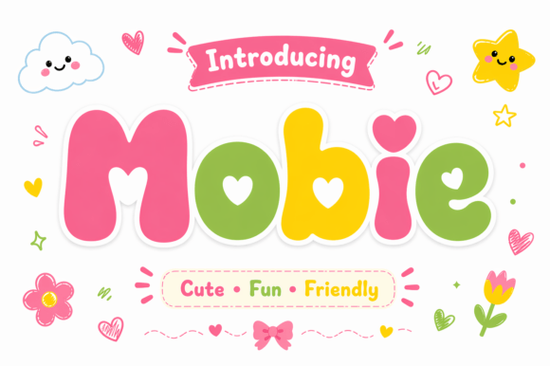
If you're looking for a font that instantly adds warmth and personality to your designs, Mobie Font is worth a closer look. With its rounded, bubble-like letters and subtle heart-shaped accents, Mobie brings a cheerful, hand-drawn feel that works beautifully across everything from kids’ merchandise to playful branding. It’s not overly polished its slight irregularities are part of its charm and that’s exactly why it resonates so well with audiences who appreciate authenticity and joy in visual design.
What makes Mobie Font stand out for creative projects?
Mobie doesn’t try to be sleek or corporate. Instead, it leans into soft curves, uneven baselines, and gentle quirks that mimic the spontaneity of freestyle doodling. This gives it an organic, approachable vibe ideal if you’re designing:
- Personalized children’s products (think mugs, tote bags, or birthday shirts)
- Friendly social media graphics or stickers
- Invitations, greeting cards, or packaging for lifestyle brands
- Print-on-demand items targeting a youthful or whimsical audience
Unlike rigid geometric fonts, Mobie feels alive. Each character has just enough variation to avoid monotony, while still maintaining readability at medium to large sizes. That balance is rare and valuable for designers who want fun without sacrificing clarity.
How does Mobie compare to other playful display fonts?
If you’ve explored Creative Fabrica’s collection, you might already know fonts like Banana Bogart, which offers bold, cartoonish energy, or Vespa, with its retro-inspired bounce. Mobie sits in a slightly softer lane: less exaggerated than Banana Bogart, more organic than Vespa. It shares some of the handcrafted warmth of Aspen, though Aspen leans rustic, while Mobie leans sweet.
For those who love quirky letterforms, Rotzky delivers dynamic angles and motion, whereas Mobie stays grounded in roundness and calm joy. And while Boogie Blast channels disco-era exuberance, Mobie whispers lighthearted optimism perfect when you want to smile, not shout.
Where should you use Mobie Font (and where should you skip it)?
Mobie shines in contexts that benefit from emotional connection and visual friendliness:
- Great for: Headlines, logos for kid-focused brands, product labels for artisanal treats, craft project titles, and digital illustrations.
- Less ideal for: Body text, legal disclaimers, minimalist branding, or any context requiring strict neutrality.
Because of its decorative nature, pair Mobie with clean, simple sans-serif fonts for contrast. A neutral companion like Montserrat or Lato lets Mobie’s personality pop without overwhelming your layout.
Tips for using Mobie effectively in print-on-demand or small business projects
If you’re selling custom goods like T-shirts, mugs, or wall art Mobie can help your products feel personal and joyful. Here’s how to get the most out of it:
- Use it for names or short phrases. Its charm works best in limited doses long paragraphs lose impact.
- Add subtle textures. A light paper grain or watercolor wash behind Mobie text enhances its handmade feel.
- Test print legibility. While it looks great on screen, ensure small details (like the heart accents) reproduce clearly on your chosen medium.
- Stick to warm or pastel palettes. Soft pinks, sky blues, mint greens, and creamy yellows complement Mobie’s tone better than stark blacks or neons.
Remember: the goal isn’t just to decorate it’s to evoke a feeling. Mobie excels when your message is kind, playful, or nostalgic.
Ready to try Mobie in your next project?
Before you download, ask yourself: Does my audience respond to warmth over polish? Am I creating something meant to delight, comfort, or surprise? If yes, Mobie could be the perfect typographic voice.
Quick checklist before using Mobie Font:
- ✅ Project calls for friendliness or childlike joy
- ✅ Text is short (headline, name, slogan)
- ✅ Paired with a clean, readable secondary font
- ✅ Colors and layout support a soft, inviting mood
- ✅ Final output (digital or print) preserves fine details
When all these align, Mobie won’t just be a font choice it’ll be part of your message.